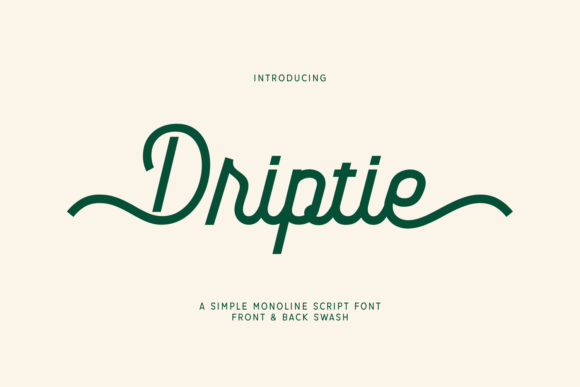
Driptie Font: The Ultimate Choice for Sleek and Modern Branding
In the world of typography, fonts play a crucial role in defining the visual identity of a brand. A well-designed font can elevate a brand’s image, making it more recognizable and memorable. One such font that has gained significant attention in recent times is the Driptie Font. This sleek and minimalist monoline script font has been making waves in the design community, and for good reason. In this article, we’ll delve into the features, benefits, and uses of the Driptie Font, and explore why it’s becoming a favorite among creative professionals.
What is Driptie Font?
Driptie is a sleek and minimalist monoline script font with a clean, retro-inspired flow. Its unique design combines the elegance of traditional script fonts with the simplicity of modern typography. The font features stylish front and back swashes, which add a touch of sophistication and flair to any design. Whether you’re looking to create a logo, signage, product label, or vintage-style branding, Driptie is the perfect choice.
Key Features of Driptie Font
- Sleek and Minimalist Design: Driptie’s monoline script design makes it perfect for modern brands looking for a clean and simple typography.
- Retro-Inspired Flow: The font’s retro-inspired flow adds a touch of nostalgia and elegance to any design.
- Stylish Swashes: Driptie features stylish front and back swashes, which can be used to add a decorative touch to your designs.
- Timeless Charm: Driptie’s classic design ensures that it will remain relevant for years to come, making it a great investment for any brand.
- Versatile: The font is perfect for a wide range of applications, including logos, signage, product labels, and vintage-style branding.
Uses of Driptie Font
Driptie’s versatility makes it suitable for a wide range of applications. Here are some of the most popular uses of the font:
- Logo Design: Driptie’s sleek and modern design makes it perfect for creating logos that are both stylish and memorable.
- Signage: The font’s clean and retro-inspired flow makes it ideal for signage, whether it’s for a storefront, billboard, or directional sign.
- Product Labels: Driptie’s stylish swashes and classic design make it a great choice for product labels, adding a touch of elegance to any product.
- Vintage-Style Branding: The font’s retro-inspired flow makes it perfect for vintage-style branding, adding a touch of nostalgia and charm to any brand.
Benefits of Using Driptie Font
There are several benefits to using Driptie Font in your designs. Here are some of the most significant advantages:
- Unique and Memorable: Driptie’s sleek and modern design makes it stand out from other fonts, ensuring that your brand will be remembered.
- Timeless: The font’s classic design ensures that it will remain relevant for years to come, making it a great investment for any brand.
- Versatile: Driptie’s versatility makes it suitable for a wide range of applications, from logos to signage and product labels.
- Easy to Read: The font’s clean and simple design makes it easy to read, even at small sizes.
Tips for Using Driptie Font
Here are some tips for using Driptie Font in your designs:
- Use it Sparingly: Driptie’s stylish swashes and classic design make it perfect for headlines and titles. Use it sparingly to add emphasis and create visual interest.
- Experiment with Colors: Driptie’s clean and simple design makes it easy to use with a wide range of colors. Experiment with different colors to find the perfect combination for your brand.
- Pair it with Other Fonts: Driptie’s versatility makes it easy to pair with other fonts. Experiment with different font combinations to create a unique and memorable brand identity.
In conclusion, Driptie Font is a sleek and modern monoline script font that is perfect for creative professionals looking for a versatile and stylish typography solution. Its unique design, stylish swashes, and timeless charm make it suitable for a wide range of applications, from logos to signage and product labels. Whether you’re looking to create a vintage-style branding or a modern logo, Driptie is the perfect choice.